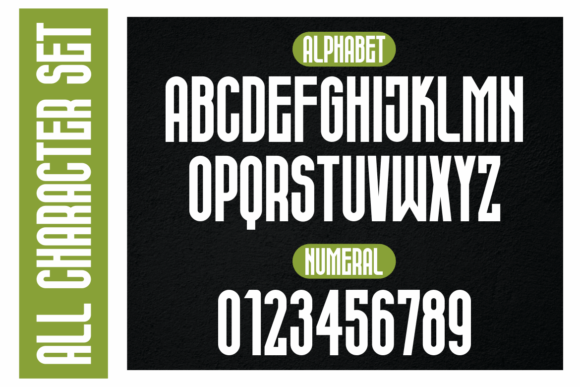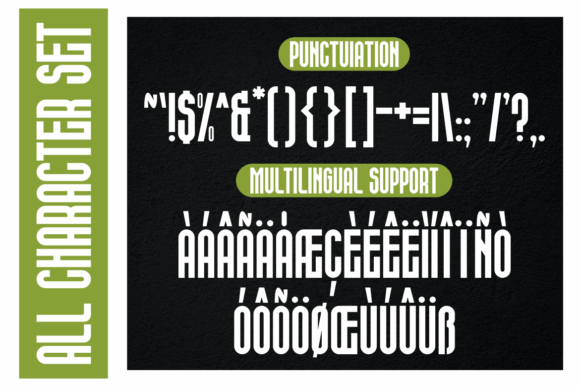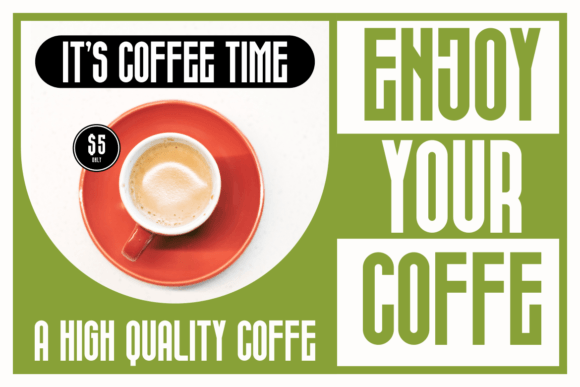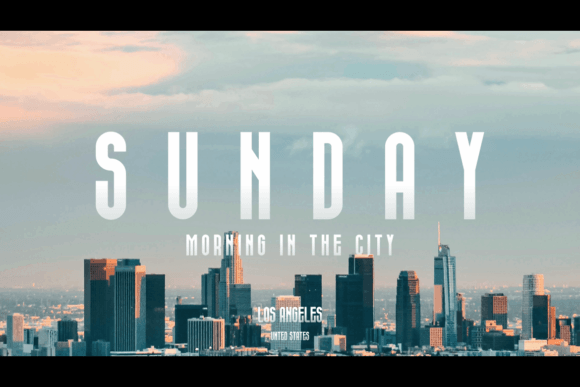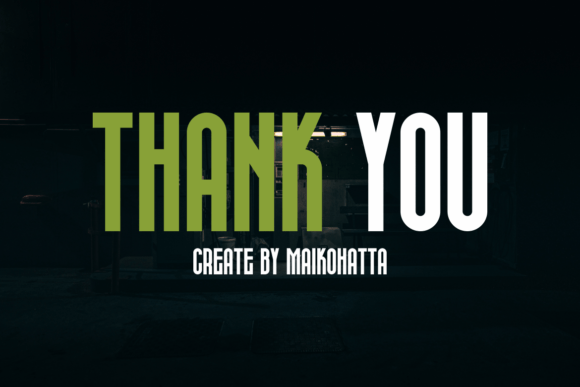
The Power of Blaccious Font: A Designer’s Best Friend
I still remember the time I was working on a project, and my client asked me to fit a long string of text into a tiny space. I was struggling to find the right font that would make it look good and still be legible. That’s when I stumbled upon the Blaccious Font. It was love at first sight! ✨ The condensed letterforms made it perfect for fitting a lot of text into a small space without sacrificing readability. In this article, I’ll share with you my experience with Blaccious Font, its characteristics, and how to make the most of it in your designs.
What is Blaccious Font?
Blaccious Font is a type of font characterized by narrower or slimmer letterforms compared to regular or wide fonts. It’s a condensed font, which means it’s designed to be more compact and space-efficient. This makes it perfect for use in various graphic designs, print materials, and other media where space is limited.
Honest Review
Here’s what I love about Blaccious Font:
- ✅ Space efficiency: Blaccious Font is perfect for fitting a lot of text into a small space.
- ✨ Legibility: Despite being condensed, Blaccious Font remains highly legible, even at smaller font sizes.
- ✅ Versatility: Blaccious Font can be used in a wide range of designs, from modern and sleek to vintage and distressed.
However, there are a few quirks to be aware of:
- 🤔 Limited use in body text: While Blaccious Font is great for headings and titles, it may not be the best choice for body text, as it can be a bit too condensed for easy reading.
- ⚠️ Kerning issues: As with any condensed font, kerning can be an issue, especially at smaller font sizes. Make sure to adjust the kerning to get the best results.
Exploring OpenType Features
Blaccious Font was inspired by the work of renowned typographer, Frank Blacc. Frank was known for his innovative approach to typography and his passion for creating fonts that were both functional and beautiful. He designed Blaccious Font to be a versatile and space-efficient font that could be used in a wide range of designs.
| What is Blaccious Font? | Blaccious Font is a condensed font characterized by narrower or slimmer letterforms. |
| What is Blaccious Font used for? | Blaccious Font is perfect for use in graphic designs, print materials, and other media where space is limited. |
| Can I use Blaccious Font for body text? | While Blaccious Font can be used for body text, it may not be the best choice, as it can be a bit too condensed for easy reading. |
| Does Blaccious Font support OpenType features? | Yes, Blaccious Font supports OpenType features, which allow you to access additional glyphs and stylistic alternates. |
| Font Name | Blaccious Font |
| Author | maikofarazhatta |